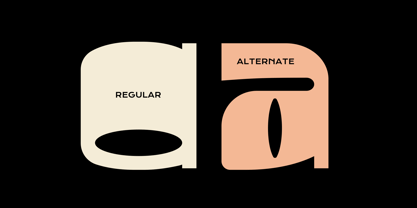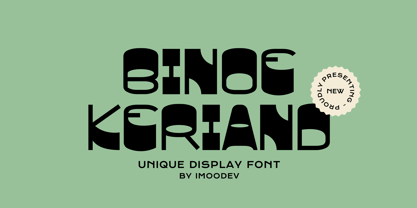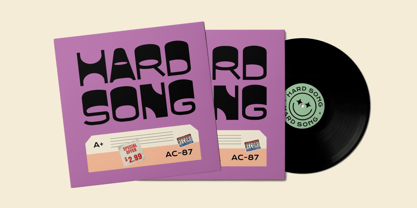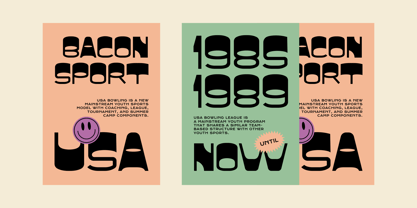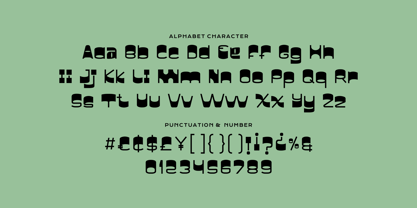
Binoe Keriand
The Binoe Keriand Font Family was designed by Aulia Savira Putri and published by Imoodev. Binoe Keriand contains 1 styles. More about this family
The 'Binoe Keriand' font brings a stylish blend of retro-futuristic flair the 1970s with the sleek edge of cyberpunk aesthetics. It is a bold typeface characterized by thick, rounded forms and unique cuts — some characters feature open oval shapes (like the standard "a"), while others resemble narrow slits, akin to eyelid (as seen in the alternate "a").
This font is a perfect fit for posters, album covers — think music festivals, art exhibits, party. Ideal for standout headlines, zines, apparel, retro-themed restaurant branding, artsy projects, product packaging and any identity that dares to defy convention and make a statement.